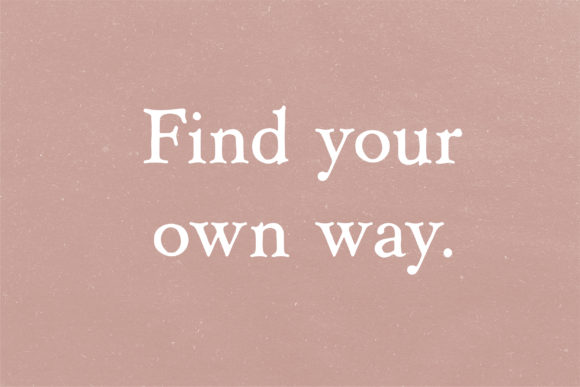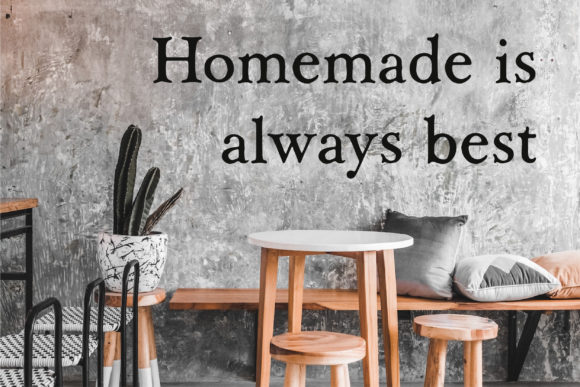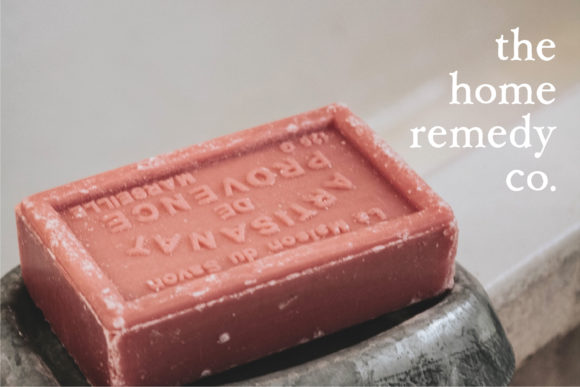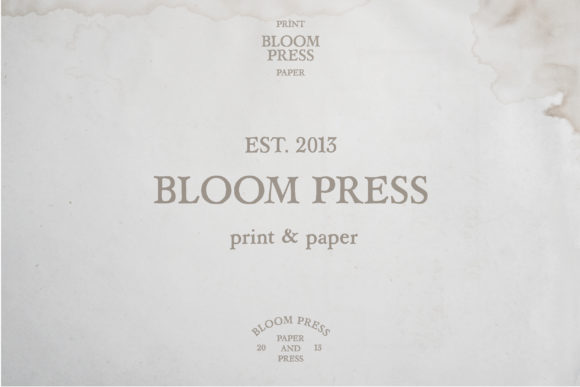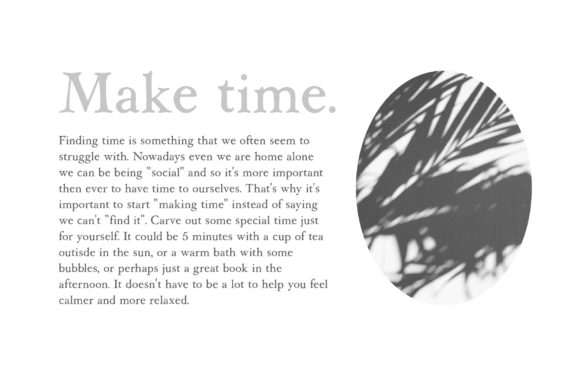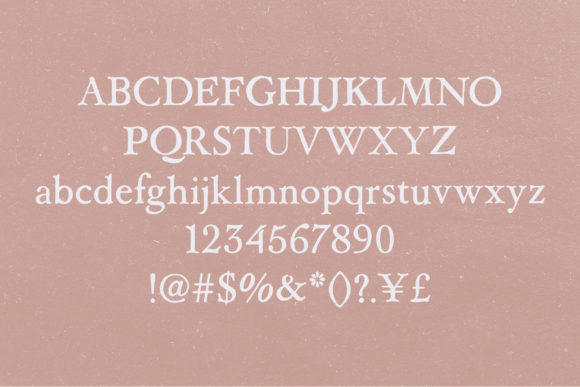
The Butterfactory Font: A Vintage Serif Delight
I’ll never forget the design project that led me to discover the Butterfactory font. I was working on a branding project for a craft bakery, and I needed a font that would evoke a sense of nostalgia and warmth. After hours of scouring font libraries and testing various options, I stumbled upon Butterfactory – a vintage-styled serif font that instantly stole my heart. In this article, I’ll share my love for this unique font, its features, and how to make the most of it in your designs.
- ✨ Unique and stylish: Butterfactory stands out from the crowd with its distinctive serif design.
- ✅ Highly legible: Despite its vintage flair, the font remains clear and easy to read, even at smaller sizes.
- 💫 Versatile: From headings to body text, Butterfactory adapts seamlessly to various design applications.
- 🎨 OpenType features: The font comes with a range of stylistic alternates, glyphs, and ligatures to elevate your typography.
While Butterfactory is an exceptional font, there are a few minor considerations to keep in mind:
- 🤔 Limited character set: As a specialty font, Butterfactory might not have all the characters you need for specific projects (e.g., technical or scientific writing).
- ⚠️ Kerning: Some users have reported that the kerning can be a bit off in certain situations, so be sure to review your text carefully.
Butterfactory’s creator drew inspiration from classic vintage typography, combining traditional serif elements with modern flair. The result is a font that’s both nostalgic and fresh – perfect for designers seeking a unique look.
| Font Name | Butterfactory Font |
| Author | Jess Bailey |
Q: What type of projects is Butterfactory best suited for?
A: Butterfactory excels in branding, packaging, and advertising projects where a touch of vintage elegance is desired.
Q: How does Butterfactory compare to other serif fonts?
A: Butterfactory’s unique blend of vintage and modern elements sets it apart from more traditional serif fonts. Its distinctive character makes it an excellent choice for designers seeking a bold look.